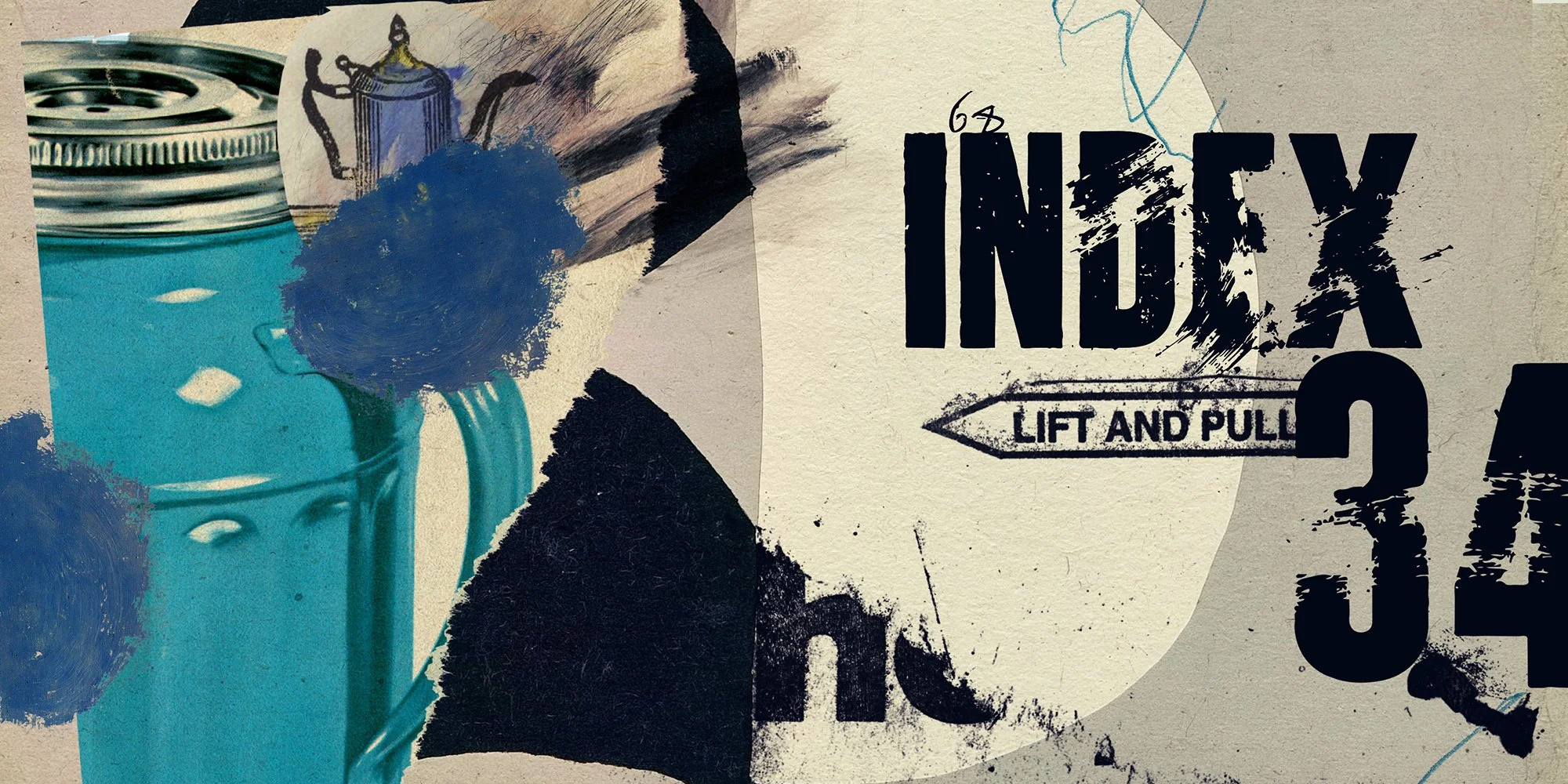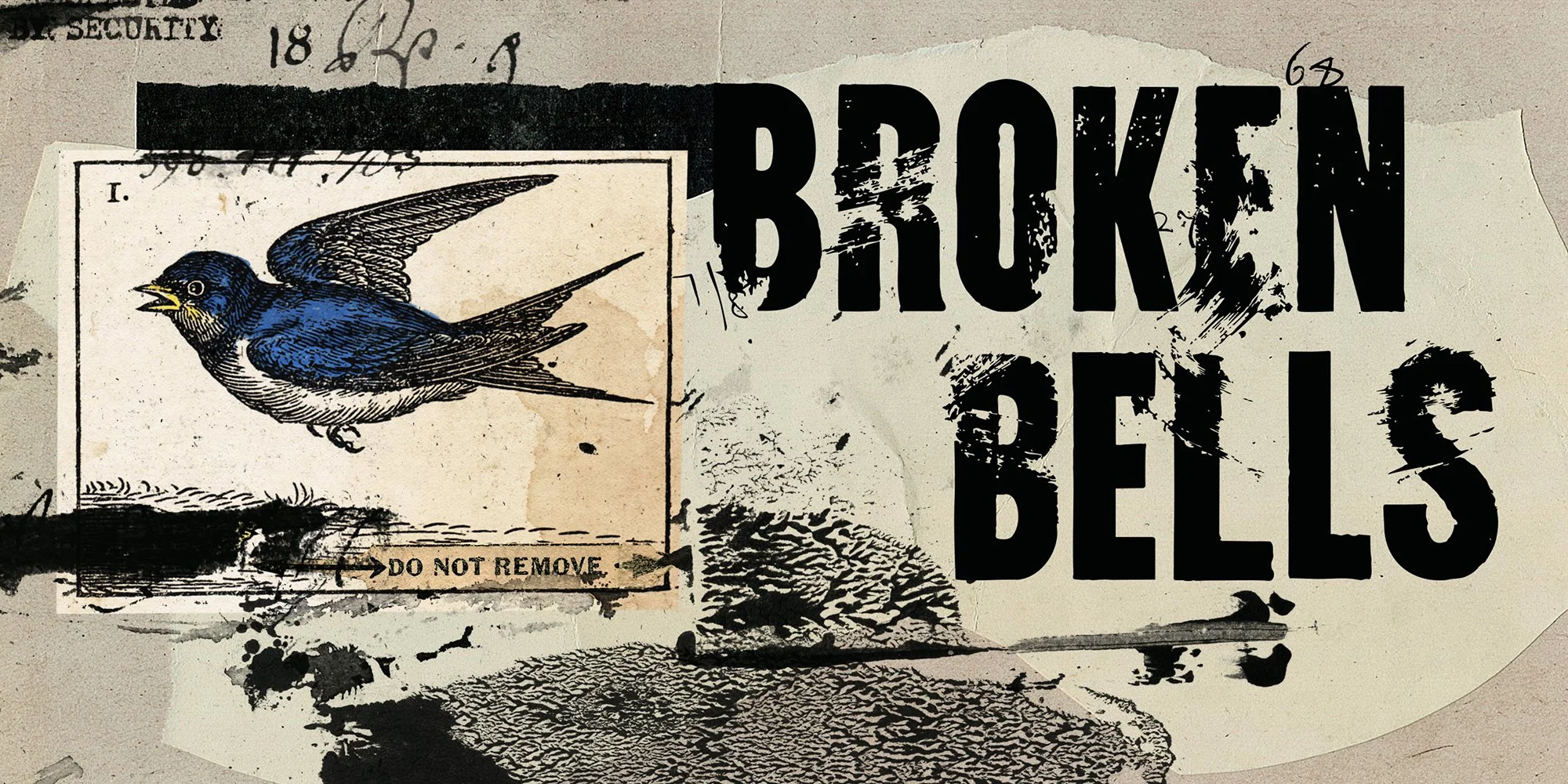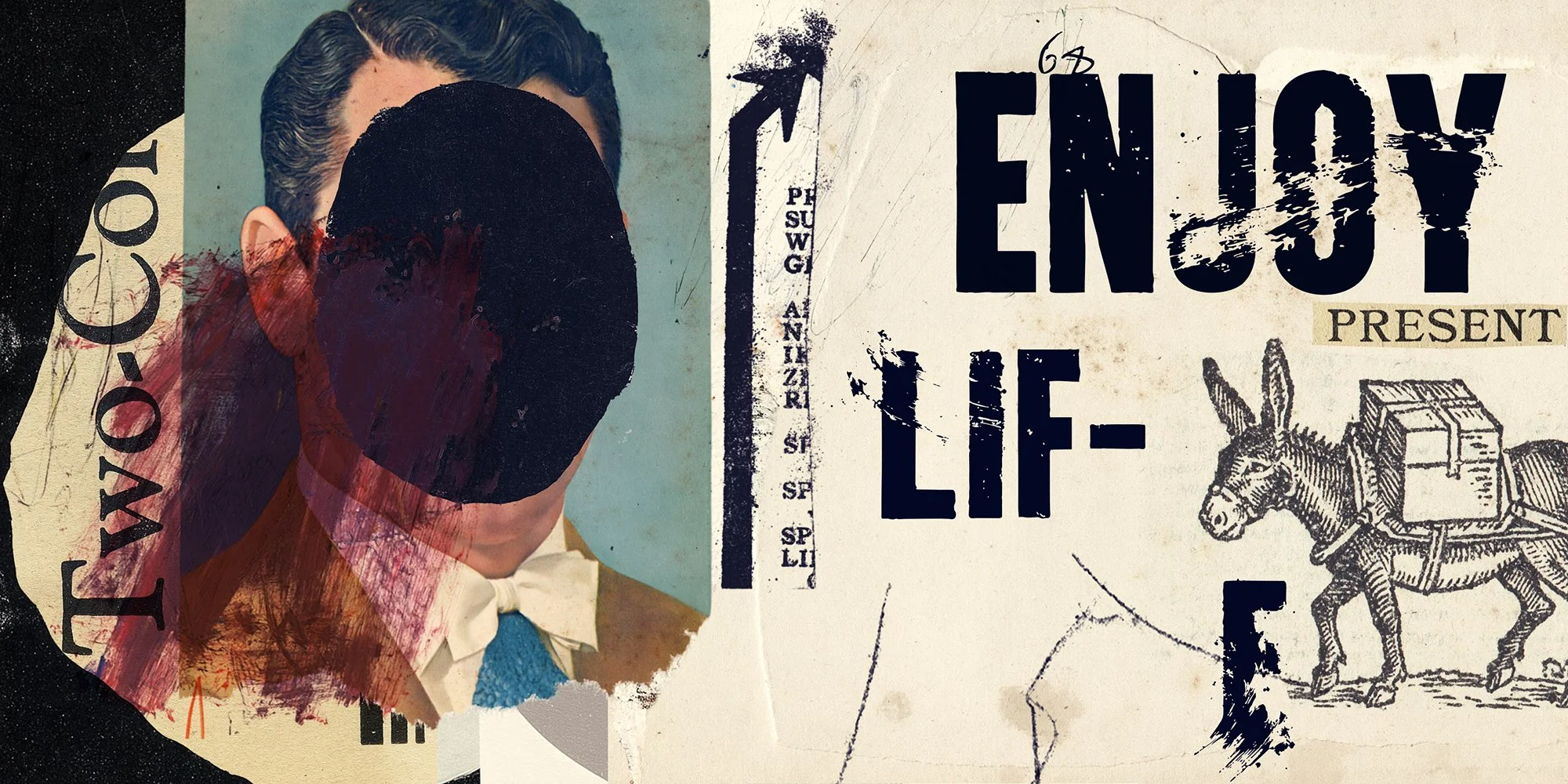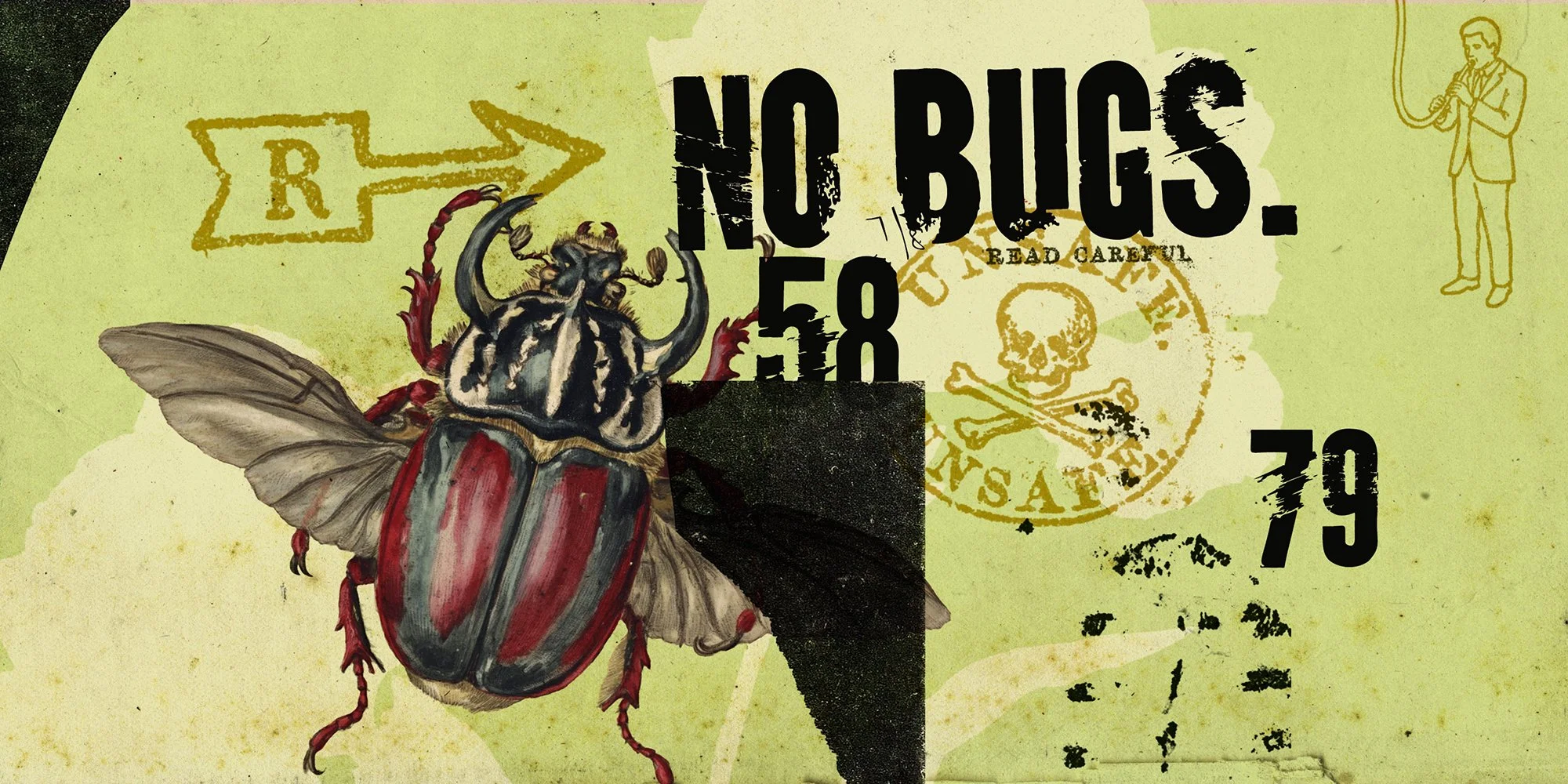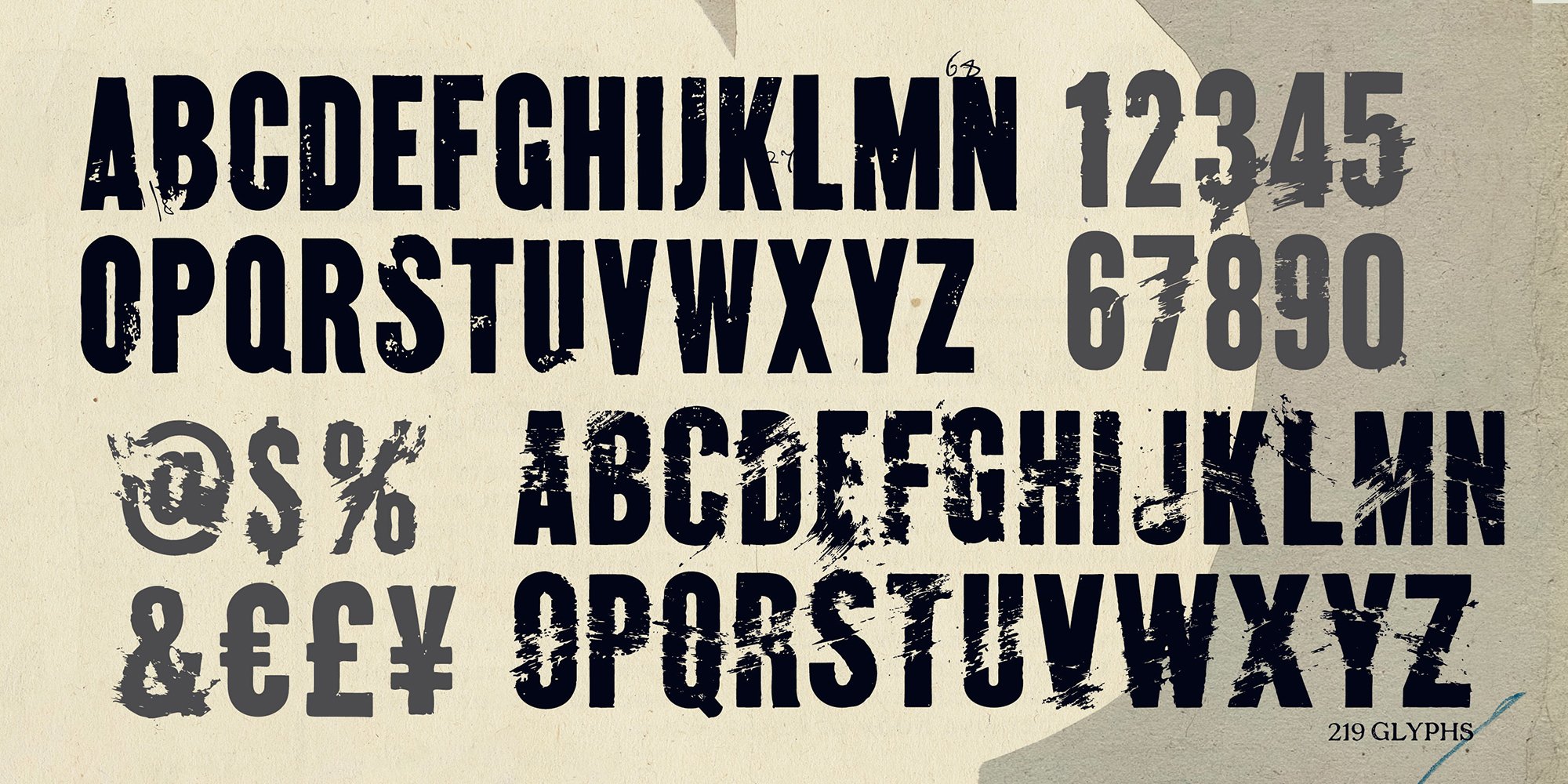
SMEAR GROTESQUE
Smear Grotesque is a distressed sans serif inspired by worn-out posters, torn street bills, dry brushes, and ink dragged across paper. It embraces imperfection, turning scratches, smudges, and rough textures into part of the letterforms themselves. Bold, loud, and unapologetic, it was made for designs that aren't afraid to stand out.
What makes Smear Grotesque unique is its dual personality. The uppercase characters feature a classic distressed appearance, while the small caps transform into expressive smeared versions, as if the ink had been pulled across the page before drying. Mixing both styles together creates a raw, unpredictable rhythm that feels handmade rather than manufactured.
With 219 glyphs, Smear Grotesque is perfect for posters, album covers, branding, packaging, editorials, and any project that calls for a bold, grunge-driven aesthetic.